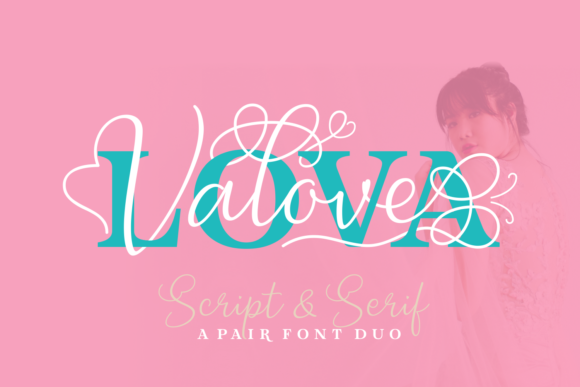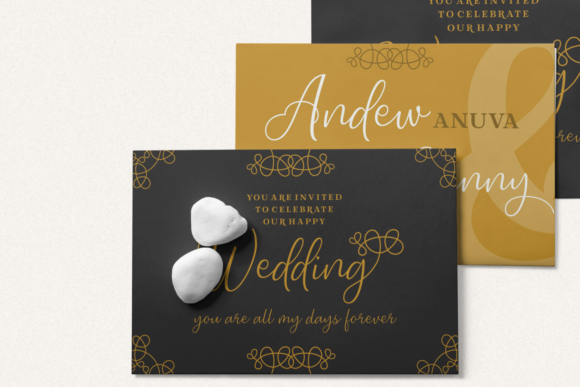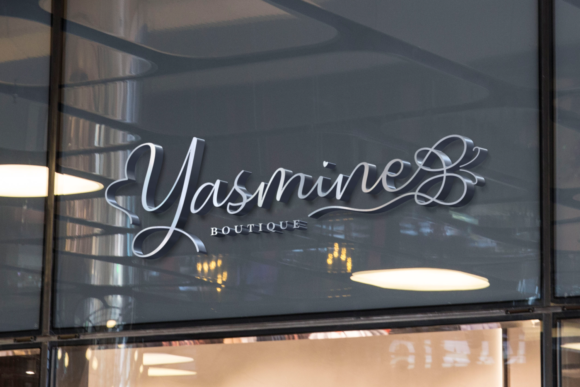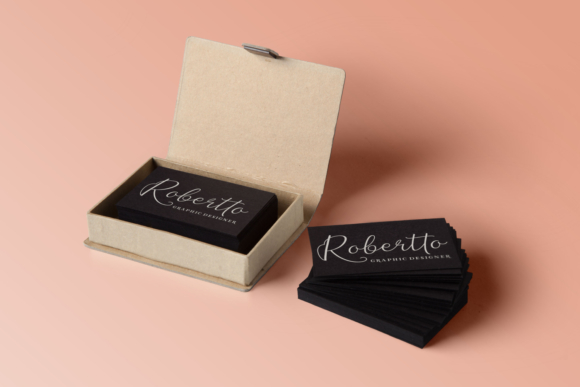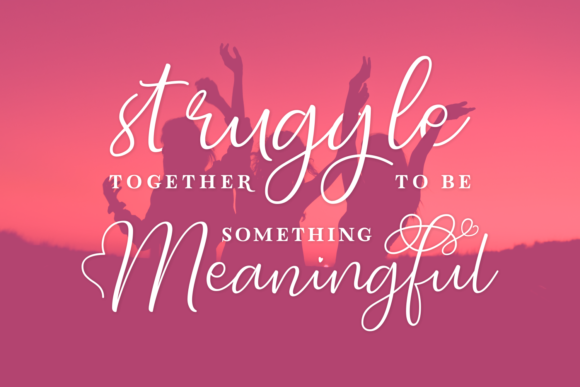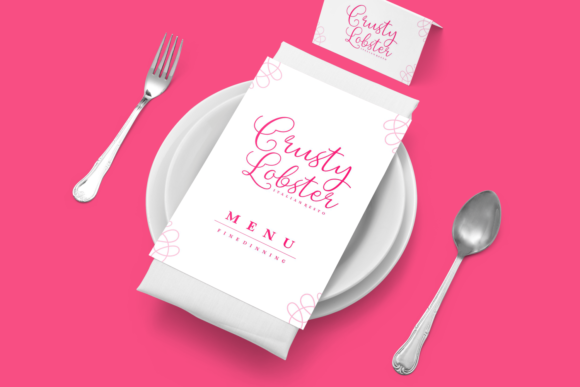
Lova Valove Duo Font
The Lova Valove is an unique font duo. It includes an elegant script and a striking serif version. The script version includes amazing swashes with romantic hearts, while the serif version will add a bold and striking touch to your designs. Both versions can be combined perfectly and will make any design stand out, but can also be used as strong stand-alones!